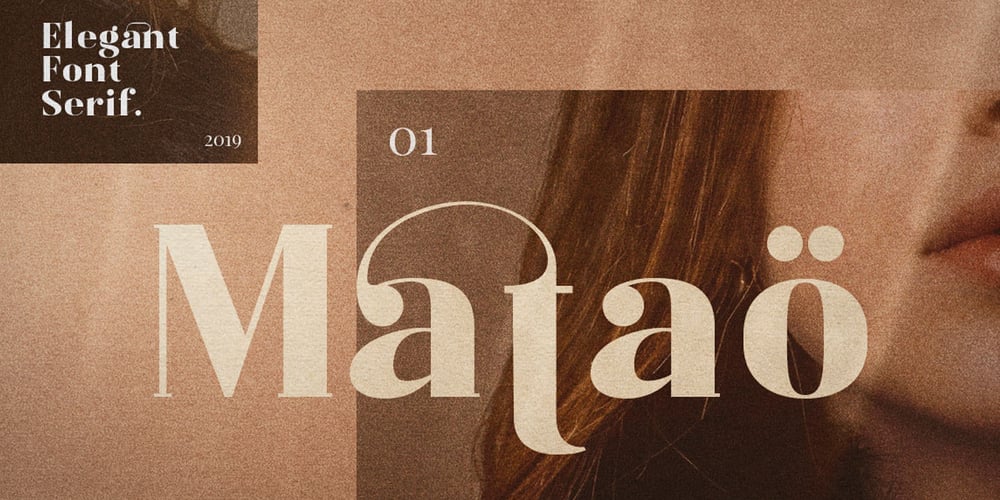
Matao Serif Font Family was designed by Aulia Rahman, Hendra Maulia and published by Identitype Co. Matao Serif contains 2 styles and family package options. Mataö is a bold and gorgeous and is great for headlines and elegant designs with a vintage and classic flair. Mataö’s contrasting lines and curved terminals give a sleek, elegant look to logos, holiday cards, wedding invitations, quotes, advertisements, and more. Mataö is a versatile typeface that’s full of character and one you’ll come back to time and again. Make your awesome design layout with Mataö.